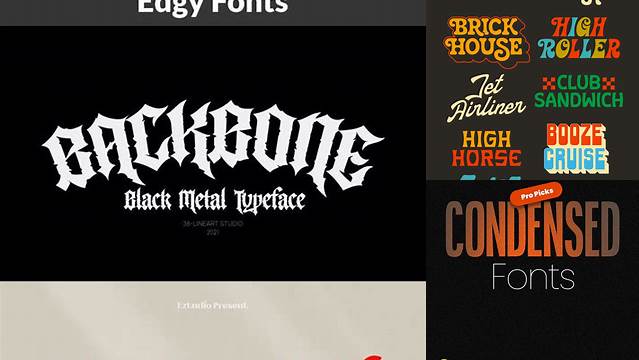
Cool Fonts For Edits: Level Up Your Design!
Choosing the right font can make or break your creative projects, guys. Whether you're designing social media graphics, editing videos, or crafting presentations, the perfect font can elevate your work from good to amazing. In this article, we'll dive deep into the world of cool fonts for edits, exploring various styles, and how to use them effectively to make your content stand out. So, let's get started and unlock the power of typography!
1. Understanding Font Styles for Editing
When it comes to cool fonts for edits, understanding different font styles is crucial. Knowing the nuances of serif, sans-serif, script, and display fonts can help you make informed decisions about which font to use for specific projects. Each style evokes a different feeling and suits various contexts. For example, serif fonts like Times New Roman or Garamond often convey a sense of tradition and formality, making them suitable for professional documents or elegant designs. Sans-serif fonts, on the other hand, such as Helvetica or Arial, offer a clean, modern look, making them ideal for websites, presentations, and minimalist designs. Script fonts, which mimic handwriting, can add a touch of elegance or playfulness, perfect for invitations or branding materials. Lastly, display fonts are the attention-grabbers – bold, unique, and designed to make a statement, great for headlines, posters, and impactful graphics. So, before diving into the specifics, let’s break down these categories and how they influence your edits.
2. Serif Fonts for a Classic Edit
Serif fonts, characterized by the small decorative strokes (serifs) at the end of each letter, bring a touch of elegance and tradition to your edits. Think of classics like Times New Roman, Garamond, or Georgia – these fonts have a timeless appeal that makes them suitable for a variety of projects. Using serif fonts in your edits can convey a sense of authority, formality, and reliability. For instance, in a video edit for a historical documentary, a serif font can lend an air of authenticity. Similarly, in graphic design for a law firm or a university, serif fonts can communicate professionalism and trustworthiness. However, while serif fonts are great for body text in print, they can sometimes appear cluttered on screens, so it’s essential to choose wisely. Combining serif fonts with modern design elements can create a sophisticated and balanced aesthetic. Ultimately, serif fonts are a fantastic choice when you want to add a touch of classic charm to your edits, guys, making them look refined and credible.
3. Sans-Serif Fonts for Modern Edits
Sans-serif fonts, which lack the decorative strokes found in serif fonts, offer a clean, modern, and minimalist look that's perfect for contemporary designs. Fonts like Helvetica, Arial, and Open Sans are staples in the design world for their readability and versatility. In the context of edits, using sans-serif fonts can give your projects a sleek, up-to-date feel. They work exceptionally well on screens, making them ideal for website graphics, presentations, and video overlays where clarity is paramount. Sans-serif fonts are also a go-to choice for branding materials aimed at a younger audience or tech-savvy demographics. Think about the logos of major tech companies – many opt for sans-serif fonts to convey innovation and simplicity. When incorporating sans-serif fonts into your edits, consider the overall tone you want to set. These fonts can be both professional and approachable, making them a solid choice for a wide range of projects that require a modern touch, guys.
4. Script Fonts for Elegant Designs
Script fonts mimic the fluidity and style of handwriting, adding an elegant and personal touch to any design. These fonts can range from formal calligraphic styles to more casual, brush-stroke-like scripts. When it comes to cool fonts for edits, script fonts are fantastic for projects that require a touch of sophistication, romance, or personality. Think of wedding invitations, branding for boutique businesses, or even adding stylish subtitles to a video. However, the key to using script fonts effectively is restraint. Due to their ornate nature, they're best used sparingly – as headings, logos, or accents rather than for large blocks of text. Readability can be a concern, so it's crucial to choose a script font that is clear and legible, especially in smaller sizes. Pairing script fonts with simpler sans-serif or serif fonts can create a beautiful contrast, making your edits look polished and professional. Overall, script fonts can be a great way to inject personality and flair into your creative projects, guys.
5. Display Fonts for Eye-Catching Edits
Display fonts are the boldest and most expressive typefaces in the font family, designed to grab attention and make a statement. These fonts come in a wide variety of styles, from chunky and playful to sleek and futuristic, making them perfect for headlines, posters, logos, and any design element that needs to stand out. When using display fonts in your edits, think big and impactful. They're ideal for creating eye-catching thumbnails for YouTube videos, designing vibrant social media graphics, or adding a dramatic flair to promotional materials. However, like script fonts, display fonts are best used sparingly. Overusing them can overwhelm your design and make it look cluttered. Choose a display font that complements the overall tone and message of your project. For example, a quirky, hand-drawn display font might be perfect for a children's book, while a bold, geometric font could be a great fit for a tech startup's branding. Ultimately, display fonts are your go-to choice when you want to add a wow factor to your edits, guys, ensuring your message gets noticed.
6. Trending Font Styles in 2024
Staying up-to-date with the latest font trends is crucial for keeping your edits fresh and relevant. In 2024, we're seeing a few key trends emerge in the world of typography. One prominent trend is the resurgence of retro and vintage fonts, which evoke a sense of nostalgia and character. Think of fonts that have a 70s or 80s vibe, with bold, rounded shapes and a touch of funk. Another trend is the use of variable fonts, which offer incredible flexibility in terms of weight, width, and style, allowing for highly customized typography. Minimalist sans-serif fonts continue to be popular, emphasizing clean lines and readability. We're also seeing a rise in experimental and unique display fonts that push the boundaries of traditional typography. To incorporate these trends into your edits, consider using retro fonts for vintage-themed projects, variable fonts for branding that requires flexibility, and minimalist sans-serif fonts for a modern, streamlined look. By staying on top of these trending font styles, you can ensure your edits look current and stylish, guys.
7. Pairing Fonts Like a Pro
Font pairing is an art form, guys, and mastering it can significantly enhance the visual appeal of your edits. The key to successful font pairing is creating contrast while maintaining harmony. A common approach is to pair a serif font with a sans-serif font, which creates a balanced and visually interesting combination. For example, you might use a classic serif font like Garamond for the body text and a clean sans-serif font like Open Sans for the headings. Another strategy is to pair a bold display font with a more understated font for the body text, ensuring that the headline grabs attention without overwhelming the overall design. When pairing fonts, consider the mood and message of your project. A script font can pair beautifully with a simple sans-serif font for an elegant look, while a playful display font might work well with a more casual sans-serif. Tools like Adobe Fonts and FontPair can help you discover great font combinations. Ultimately, experimenting with different font pairings is the best way to find the perfect match for your edits, making them look polished and professional.
8. Best Fonts for Social Media Edits
Social media is a visual medium, and the fonts you use in your edits can significantly impact engagement. When choosing cool fonts for edits for platforms like Instagram, Facebook, and Twitter, readability and visual appeal are key. For captions and posts, sans-serif fonts like Open Sans, Lato, and Montserrat are excellent choices due to their clean, modern look and legibility on screens. For graphics and thumbnails, you might want to use bolder display fonts to grab attention, but remember to balance them with more readable fonts for the text content. Script fonts can also work well for adding a personal touch to quotes or headings, but use them sparingly to avoid clutter. It's also crucial to consider the platform's design guidelines and the overall aesthetic of your brand. Maintaining consistency in your font choices across all your social media content can help build brand recognition and create a cohesive visual identity. So, when you're selecting fonts for social media edits, think about clarity, impact, and brand consistency to maximize your engagement, guys.
9. Top Fonts for Video Editing Projects
In video editing, the right fonts can enhance the visual storytelling and keep your audience engaged. When selecting cool fonts for edits in video projects, consider the genre, tone, and target audience of your video. For titles and lower thirds, clean sans-serif fonts like Arial, Helvetica, and Montserrat are popular choices for their readability and modern aesthetic. If you're looking to add a touch of elegance or drama, script fonts can work well for titles or credits, but be sure to use them sparingly to maintain legibility. Display fonts can be great for creating impactful opening titles or transitions, but it's crucial to ensure they complement the overall style of your video. Think about how the fonts you choose will look on different screen sizes and resolutions. Using a font that is too thin or intricate might not translate well on smaller screens. Additionally, make sure your font choices align with the video's content – a documentary might call for more traditional fonts, while a promotional video for a tech startup could benefit from a sleek, modern typeface. By carefully selecting fonts that match your video's style and message, you can create a visually compelling viewing experience, guys.
10. Font Resources: Where to Find Cool Fonts
Finding the cool fonts for edits can be an exciting part of the design process, guys. Luckily, there are tons of resources available online to help you discover the perfect typeface for your projects. Websites like Google Fonts offer a vast library of free, high-quality fonts that you can use in both personal and commercial projects. Adobe Fonts, included with an Adobe Creative Cloud subscription, provides access to a wide range of professional fonts. Font foundries like MyFonts and FontShop offer a diverse selection of premium fonts, while websites like DaFont and Creative Market provide a mix of free and paid options. When browsing font resources, you can filter by font style, category, and even language to narrow your search. Many websites also offer font previews, allowing you to see how the font looks in different sizes and contexts. It's also a good idea to check the licensing terms of any font you download to ensure you can use it for your intended purpose. With so many resources at your fingertips, you're sure to find the perfect fonts to elevate your edits!
11. Free vs. Paid Fonts: Which is Right for You?
When diving into the world of cool fonts for edits, one of the first decisions you'll face is whether to use free or paid fonts. Both options have their advantages and disadvantages, so it’s essential to understand the differences to make the best choice for your projects. Free fonts, often found on platforms like Google Fonts and DaFont, are a great resource for beginners or those on a tight budget. They offer a wide variety of styles and can be used for both personal and commercial projects (though it’s always important to double-check the licensing). However, free fonts may sometimes lack the polish and extensive character sets of paid fonts. Paid fonts, available from sites like Adobe Fonts, MyFonts, and Creative Market, typically offer higher quality designs, broader language support, and more extensive font families. They often come with better technical support and a guarantee of quality. The choice between free and paid fonts ultimately depends on your specific needs and budget. If you're working on a professional project or need a unique and high-quality typeface, investing in a paid font might be worthwhile. For more casual projects, free fonts can be a fantastic option. So, weigh your options, consider your project requirements, and choose the fonts that best fit your needs, guys.
12. Best Practices for Font Usage in Edits
Using cool fonts for edits effectively involves more than just picking a visually appealing typeface. It's about following best practices to ensure your fonts enhance rather than detract from your message. One crucial practice is to limit the number of fonts you use in a single project. Sticking to two or three fonts can create a cohesive and professional look, while using too many fonts can make your design look cluttered and confusing. Another key practice is to consider readability. Choose fonts that are easy to read, especially for body text and captions. Avoid overly decorative or thin fonts for large blocks of text, as they can strain the eyes. Pay attention to font size and spacing to ensure your text is legible at different sizes and on various devices. Create a hierarchy by using different font sizes, weights, and styles to emphasize key elements and guide the viewer's eye. Lastly, always test your font choices on different backgrounds and devices to ensure they look good in all contexts. By following these best practices, you can make your edits look polished, professional, and visually engaging, guys.
13. How Fonts Impact Your Brand Identity
Fonts are a crucial element of your brand identity, guys, playing a significant role in how your brand is perceived. The fonts you choose for your logo, website, and marketing materials communicate your brand's personality and values. For example, a brand that wants to convey trustworthiness and reliability might opt for a classic serif font, while a tech startup might choose a clean, modern sans-serif font to signal innovation and simplicity. Consistency in your font choices across all your brand touchpoints is essential for building brand recognition and creating a cohesive visual identity. When selecting cool fonts for edits related to your brand, consider your target audience, the message you want to convey, and your brand's overall aesthetic. A playful script font might be perfect for a children's brand, while a bold display font could be ideal for a brand targeting a younger demographic. It's also important to ensure that your font choices are legible and accessible across different platforms and devices. By carefully selecting and consistently using fonts that align with your brand identity, you can create a strong and memorable brand presence.
14. Creating Font Combinations for Different Projects
Creating effective font combinations is a valuable skill for any designer or content creator, guys. The right font pairing can elevate your projects, making them more visually appealing and engaging. When combining cool fonts for edits, the goal is to create contrast while maintaining harmony. A classic approach is to pair a serif font with a sans-serif font. For instance, you might use a traditional serif font like Times New Roman for headings and a modern sans-serif font like Helvetica for body text. This combination provides a balance of formality and readability. Another strategy is to pair a bold display font with a simpler, more understated font. This ensures that your headlines grab attention without overwhelming the rest of your design. When working on different projects, tailor your font combinations to the specific context. For a website, prioritize readability and choose fonts that are easy on the eyes. For social media graphics, you might want to use bolder fonts to stand out in a crowded feed. Tools like FontPair and Adobe Fonts can be helpful for exploring different font combinations. Experiment with various pairings to find the perfect mix for your project, enhancing its visual impact and message, guys.
15. Font Psychology: What Your Font Choice Says About You
Font psychology is the study of how different typefaces evoke specific emotions and perceptions, guys. Understanding this can significantly enhance your ability to communicate effectively through your designs. When you choose cool fonts for edits, you're not just selecting a style; you're sending a message. For example, serif fonts often convey tradition, authority, and reliability, making them suitable for formal documents or classic brands. Sans-serif fonts, on the other hand, project modernity, simplicity, and clarity, ideal for tech companies or minimalist designs. Script fonts can evoke elegance, creativity, and a personal touch, perfect for invitations or branding for boutique businesses. Display fonts are bold and attention-grabbing, making them great for headlines and marketing materials that need to stand out. The weight and spacing of a font also play a role. Bold fonts convey strength and confidence, while lighter fonts can suggest sophistication and subtlety. By consciously considering font psychology, you can ensure that your font choices align with your message and resonate with your audience, creating a powerful and impactful visual communication, guys.
16. The Importance of Font Licensing
Font licensing is a crucial aspect of using cool fonts for edits, guys, and understanding it can save you from potential legal issues. When you download a font, you're not buying the font itself, but rather a license to use it. Font licenses dictate how you can use the font, including whether it's for personal or commercial projects, the number of devices it can be installed on, and whether you can embed it in documents or websites. Free fonts often come with licenses that allow for both personal and commercial use, but it's essential to always check the specific terms. Some free fonts may have restrictions on how you can use them, such as requiring attribution or prohibiting modifications. Paid fonts typically have more detailed licenses that specify the scope of usage, and it's important to read these carefully to ensure compliance. Using a font without the proper license can lead to copyright infringement, which can result in legal penalties. To avoid any issues, always download fonts from reputable sources and review the licensing terms before using them in your projects. Keeping track of your font licenses is a good practice to ensure you're using them legally, giving you peace of mind and allowing you to focus on your creative work.
17. Font Accessibility: Making Your Edits Readable for Everyone
Font accessibility is a critical consideration when creating cool fonts for edits, guys, as it ensures that your content is readable and usable by everyone, including people with disabilities. Accessibility involves choosing fonts that are clear, legible, and easy to read for individuals with visual impairments or reading difficulties. Sans-serif fonts like Arial, Helvetica, and Open Sans are often recommended for their simplicity and readability. Avoid overly decorative or script fonts for large blocks of text, as they can be challenging to read. Ensure that there is sufficient contrast between the text and the background color. Low contrast can make text difficult to read, especially for those with visual impairments. Use appropriate font sizes. Smaller fonts can be hard to read, while excessively large fonts can be overwhelming. Consider using a font size of at least 12 points for body text. Pay attention to line spacing and kerning to improve readability. Proper spacing between lines and letters can prevent text from appearing crowded. Provide alternative text for images that contain text, allowing screen readers to convey the information to visually impaired users. By prioritizing font accessibility, you can create inclusive designs that reach a wider audience and ensure that everyone can engage with your content, guys.
18. The Evolution of Font Design
The evolution of font design is a fascinating journey, guys, reflecting changes in technology, art, and culture throughout history. From the earliest forms of written communication to the digital age, fonts have played a crucial role in shaping how we communicate and perceive information. The invention of the printing press in the 15th century revolutionized typography, leading to the development of classic serif fonts like Garamond and Times New Roman. These fonts, with their elegant serifs and balanced proportions, became staples in books and newspapers. The 20th century saw the rise of sans-serif fonts, driven by the modernist movement's emphasis on simplicity and functionality. Fonts like Helvetica and Futura gained popularity for their clean lines and readability, becoming synonymous with modern design. The digital revolution has brought about a new era of font design, with the advent of variable fonts and the proliferation of online font foundries. Today, designers have access to a vast array of typefaces, ranging from traditional styles to experimental and display fonts. Understanding the history and evolution of font design can provide valuable insights into the principles of typography and help you make informed choices when selecting cool fonts for edits, guys.
19. How to Install Fonts on Your Computer
Installing new cool fonts for edits on your computer is a straightforward process, guys, that allows you to expand your typographic toolkit. Whether you've downloaded a free font or purchased a premium typeface, the installation steps are generally the same for both Windows and macOS. On Windows, you can install a font by right-clicking on the font file (usually a .ttf or .otf file) and selecting “Install.” Alternatively, you can copy the font file to the Fonts folder in your Windows directory (usually located at C:\Windows\Fonts). On macOS, you can install a font by double-clicking the font file, which opens the Font Book application. Click the “Install Font” button to add the font to your system. Once a font is installed, it should be available for use in most applications, including word processors, design software, and video editing programs. If you encounter any issues, try restarting the application or your computer. Sometimes, it may be necessary to clear the font cache to resolve font-related problems. Properly installing fonts ensures that you can access and use them in your creative projects, giving you a wider range of typographic options, guys.
20. Kerning, Tracking, and Leading: Essential Typography Terms
Understanding essential typography terms like kerning, tracking, and leading is crucial for creating professional-looking edits, guys. These concepts relate to the spacing and arrangement of letters and lines of text, and mastering them can significantly enhance the readability and visual appeal of your designs. Kerning refers to the adjustment of the space between individual letters to create a balanced and harmonious appearance. Some letter pairs, like “AV” or “WA,” may appear too far apart without kerning adjustments. Tracking, also known as letter-spacing, is the uniform adjustment of the spacing between all letters in a block of text. Increasing tracking can make text feel more open and airy, while decreasing it can make text feel denser. Leading, pronounced “led-ing,” is the vertical space between lines of text. Proper leading improves readability by preventing lines from appearing crowded. The ideal leading depends on the font size and typeface, but a general guideline is to set leading to 120-145% of the font size. By paying attention to kerning, tracking, and leading, you can fine-tune your typography and ensure that your cool fonts for edits look their best, guys.
21. Using Fonts in Branding Materials
Using cool fonts for edits in branding materials is a vital aspect of creating a cohesive and recognizable brand identity, guys. Your font choices communicate your brand’s personality and values, influencing how customers perceive your business. Consistency in font usage across all your branding materials, including your logo, website, business cards, and marketing collateral, is essential for building brand recognition. Your logo font should be unique and memorable, reflecting your brand’s essence. Consider using a combination of fonts to create visual interest. For example, you might use a bold display font for your logo and a clean sans-serif font for your website body text. Choose fonts that are legible and accessible, ensuring that your message is clear and easy to read. Think about the tone and style of your brand. A traditional brand might opt for classic serif fonts, while a modern brand might prefer clean sans-serif fonts. Test your font choices across different mediums and devices to ensure they look good in all contexts. A font that looks great on your computer screen may not translate well to print or mobile devices. By carefully selecting and consistently using fonts in your branding materials, you can create a strong and memorable brand identity that resonates with your target audience, guys.
22. Creating a Font Library for Editing
Creating a well-organized font library is a smart move for any editor or designer, guys. Having a curated collection of cool fonts for edits readily available can streamline your workflow and ensure consistency across your projects. Start by categorizing your fonts based on style, such as serif, sans-serif, script, and display fonts. This makes it easier to find the right font for a specific project. Use descriptive names for your font folders to quickly identify the type of fonts they contain. For example, you might have folders named “Modern Sans-Serif,” “Classic Serif,” or “Handwritten Fonts.” Consider using a font management tool, such as FontBase or NexusFont, to organize and activate your fonts. These tools allow you to preview fonts, create font sets for different projects, and avoid system slowdowns caused by having too many fonts active at once. Regularly review your font library and remove any fonts that you no longer use. This helps to keep your collection organized and prevents clutter. Before adding a new font to your library, check the licensing terms to ensure that you can use it for your intended purposes. A well-maintained font library is a valuable asset for any editor, providing quick access to a diverse range of typefaces and enhancing your creative capabilities, guys.
23. Font Trends in Web Design
Staying up-to-date with font trends in web design is crucial for creating websites that look modern and engaging, guys. The right fonts can enhance the user experience, improve readability, and communicate your brand’s personality. In recent years, we've seen a shift towards larger font sizes, which improve legibility and create a more impactful visual presence. Bold and geometric sans-serif fonts continue to be popular for headlines and body text, offering a clean and contemporary look. Variable fonts, which allow for dynamic adjustments to font weight and style, are gaining traction for their flexibility and efficiency. Monospace fonts, inspired by typewriter typefaces, are also making a comeback, adding a retro touch to web designs. Serif fonts are being used more creatively, often paired with sans-serif fonts to create visual contrast and a sophisticated aesthetic. Accessibility is a key consideration, with designers prioritizing fonts that are easy to read for users with visual impairments. When choosing cool fonts for edits for your website, consider your target audience, brand identity, and the overall tone of your site. By staying informed about current font trends and best practices, you can create a website that is visually appealing and user-friendly, guys.
24. Best Fonts for Print Design
Choosing the right fonts for print design is crucial for creating visually appealing and effective printed materials, guys. Unlike web design, where fonts are rendered on screens, print design requires fonts that look sharp and legible when printed on paper. Serif fonts like Times New Roman, Garamond, and Baskerville are classic choices for print design, known for their readability and elegant appearance. These fonts are particularly well-suited for body text in books, magazines, and newspapers. Sans-serif fonts like Helvetica, Arial, and Futura can also be used effectively in print, especially for headlines, captions, and shorter blocks of text. When selecting cool fonts for edits for print, consider the paper stock, ink color, and printing method. Lighter paper stocks may require bolder fonts to ensure readability, while darker inks may work better with thinner fonts. Avoid using overly decorative or script fonts for large blocks of text, as they can be difficult to read in print. Pay attention to kerning and leading to optimize the spacing between letters and lines. Test your font choices by printing a sample page before committing to a larger print run. By carefully selecting fonts that are well-suited for print, you can create printed materials that are visually appealing and easy to read, guys.
25. Font Pairing Tools and Resources
Font pairing can be a challenging but rewarding aspect of design, guys. Combining different fonts effectively can enhance the visual appeal of your projects, but choosing the right combinations can be tricky. Fortunately, there are several font pairing tools and resources available to help you find cool fonts for edits that work well together. FontPair is a website that offers curated font combinations, showcasing different pairings of Google Fonts. It provides visual examples and allows you to browse fonts by category and style. Adobe Fonts offers a wide range of fonts and includes features that suggest complementary fonts based on your selections. The Typewolf website features real-world examples of font pairings in web design, providing inspiration and insights into how different fonts work together. Canva's Font Combinations tool suggests font pairings based on the overall design aesthetic you're aiming for. Google Fonts also offers suggestions for popular pairings. When using these tools, consider the overall tone and message of your project. A classic serif font may pair well with a clean sans-serif font, while a bold display font may require a more understated companion. Experiment with different combinations to find the perfect pairing for your designs, guys.
26. Custom Fonts: Creating Your Own Unique Typeface
Creating your own custom fonts is a fantastic way to add a unique touch to your designs and branding, guys. Custom fonts can set your projects apart and help you establish a distinctive visual identity. Designing a typeface is a complex process that requires attention to detail and a strong understanding of typography principles. You can start by sketching out letterforms by hand, experimenting with different styles and shapes. Once you have a basic design, you can use font creation software, such as FontLab Studio, Glyphs, or BirdFont, to digitize your letters and create a usable font file. These tools allow you to adjust kerning, tracking, and other typographic elements. Consider the purpose of your font when designing it. A font intended for headlines may have a bolder and more decorative style than a font designed for body text. Test your font in different sizes and contexts to ensure readability and visual appeal. Creating a custom font can be a time-consuming process, but the result is a unique and personalized typeface that can elevate your designs and branding, guys.
27. How to Choose the Right Font for Your Project
Choosing the right font for your project can make a significant difference in its overall impact, guys. The font you select should align with the project's purpose, tone, and target audience. Start by considering the message you want to convey. Serif fonts often convey tradition and authority, while sans-serif fonts project modernity and simplicity. Script fonts can add a touch of elegance or playfulness, and display fonts are ideal for grabbing attention. Think about the readability of the font. For large blocks of text, choose fonts that are easy on the eyes, such as Times New Roman, Arial, or Open Sans. For headlines and shorter text elements, you can use more decorative or display fonts. Consider the context in which the font will be used. A font that looks great on a computer screen may not translate well to print, and vice versa. Pay attention to font size and spacing. Smaller fonts may require more leading (line spacing) to improve readability. When selecting cool fonts for edits, think about your brand identity. Your font choices should be consistent with your brand's overall aesthetic and personality. Test your font selections in different sizes and contexts before finalizing your design. By carefully considering these factors, you can choose fonts that enhance your project's message and create a visually compelling experience, guys.
28. The Future of Font Technology
The future of font technology is bright and exciting, guys, with several innovations poised to transform how we use and interact with typefaces. Variable fonts, which allow for dynamic adjustments to font weight, width, and other characteristics, are gaining popularity for their flexibility and efficiency. These fonts can reduce file sizes and improve website performance. Color fonts, which support multiple colors and gradients within a single font file, are opening up new possibilities for creative typography. 3D fonts, which create the illusion of depth and dimension, are being used in branding and advertising to make designs stand out. Artificial intelligence (AI) is also playing a role in font technology, with AI-powered tools assisting in font design and font pairing. AI can analyze the characteristics of a font and suggest complementary typefaces, streamlining the design process. Font accessibility is becoming an increasingly important focus, with efforts to develop fonts that are easier to read for individuals with visual impairments. As technology continues to evolve, we can expect to see even more innovative and creative font solutions emerge, enhancing the visual communication landscape, guys.
29. Font Design Software: Tools for Creating Your Own Fonts
If you're interested in creating your own cool fonts for edits, guys, there's a range of font design software available to help you bring your ideas to life. These tools provide the features and functionality you need to design, edit, and refine typefaces. FontLab Studio is a professional-grade font editor used by many typographers. It offers advanced drawing tools, precise control over letterforms, and support for variable fonts. Glyphs is another popular font design software, known for its user-friendly interface and powerful features. It's particularly well-suited for designing complex and multi-script typefaces. BirdFont is a free and open-source font editor that's a great option for beginners. It offers a streamlined interface and essential tools for creating basic fonts. RoboFont is a Python-based font editor that's popular among type designers who want to automate tasks and customize their workflow. FontForge is another free and open-source option that's been around for many years. It supports a wide range of font formats and offers a comprehensive set of features. When choosing font design software, consider your skill level, budget, and the complexity of the fonts you want to create. Experiment with different tools to find the one that best suits your needs and design style, guys.
30. Maintaining Font Consistency Across Platforms
Maintaining font consistency across platforms is essential for ensuring that your designs look as intended, regardless of the device or operating system on which they're viewed, guys. Inconsistencies in font rendering can occur due to differences in font availability, operating system settings, and browser capabilities. To minimize these issues, use web-safe fonts, such as Arial, Helvetica, Times New Roman, and Georgia, which are commonly installed on most systems. For more unique or custom cool fonts for edits, consider using web fonts, which are hosted online and can be embedded in your website or email. Services like Google Fonts and Adobe Fonts provide a wide range of web fonts that can be easily implemented using CSS. Ensure that your website or email design specifies a fallback font in case the primary font is not available. Fallback fonts are default fonts that the browser or operating system will use if the specified font cannot be loaded. Test your designs on different devices and browsers to identify any font rendering issues. Use consistent font sizes and styles throughout your design to create a cohesive and professional look. By taking these steps, you can maximize font consistency across platforms and ensure that your designs are visually appealing to all viewers, guys.